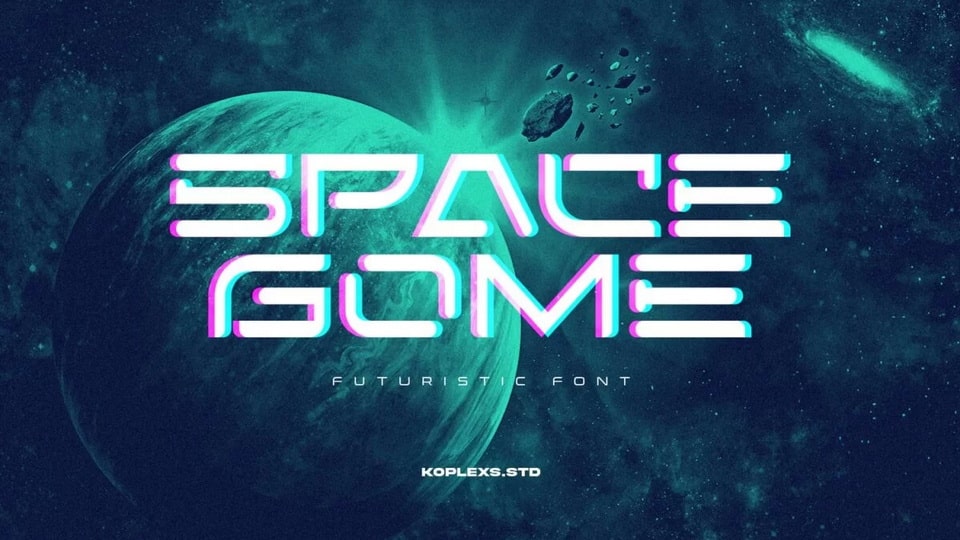
Download Space Gome font, a futuristic typeface with rounded edges that will make your designs look more modern and technological. Space Gome font is perfect for any purpose, especially to create e-sport logos, NFT projects, cover movies etc.
Designer: Koplexs Studio